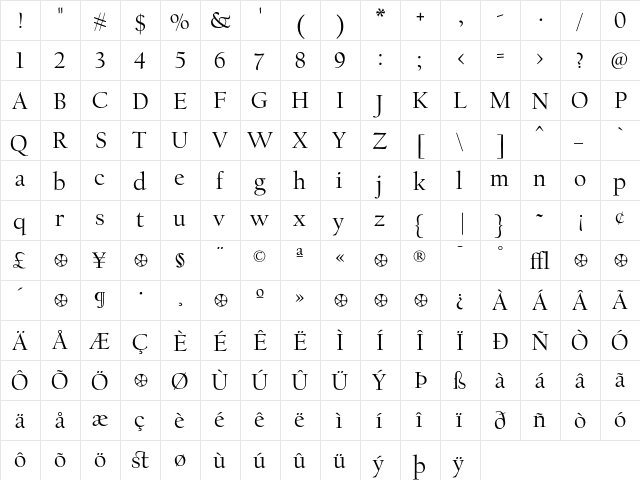
CalifornianMiddle Roman
Design Context for CalifornianMiddle Typeface
CalifornianMiddle offers clean, dependable letterforms without strong stylistic allegiance, making it a practical choice for designers who need flexibility.
Pro Tip: Use CalifornianMiddle in both headline and body roles to test its range before committing to a single application.